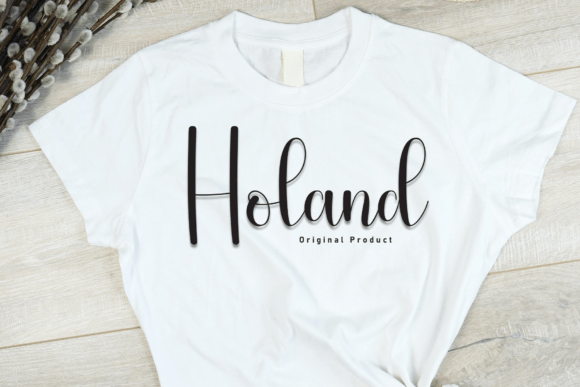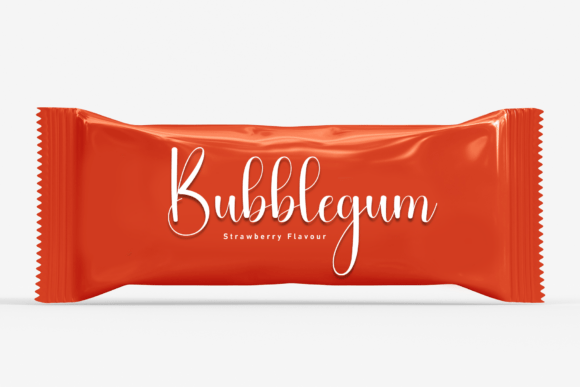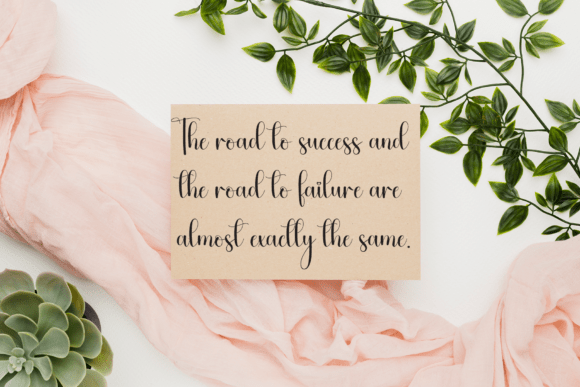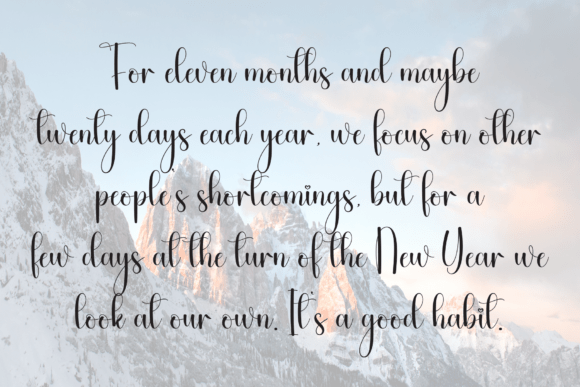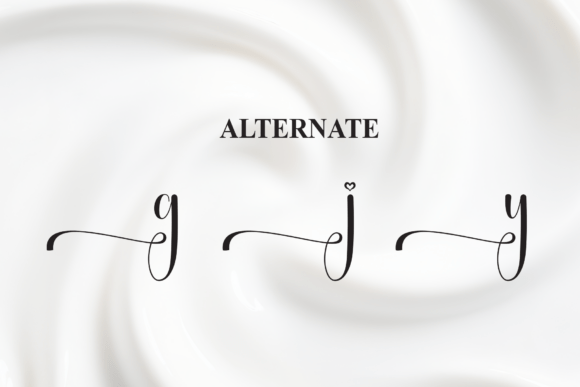
Creamy Font: The Perfect Addition to Your Design Arsenal
Are you tired of using the same old fonts in your designs? Do you want to add a touch of warmth and friendliness to your projects? Look no further than Creamy Font, a delightful and handcrafted display font that’s sure to bring a smile to your audience’s face. In this article, we’ll dive into the world of Creamy Font, exploring its features, uses, and benefits, and why it’s the perfect choice for designers and crafters alike.
What is Creamy Font?
Creamy Font is a charming and animated display font that’s designed to add a friendly touch to your designs. With its unique and handcrafted style, this font is perfect for creating wedding invitations, greeting cards, and any other design that requires a dash of joy. Whether you’re a designer, crafter, or DIY enthusiast, Creamy Font is sure to become your new go-to font.
Key Features of Creamy Font
• Handcrafted with love: Creamy Font is carefully crafted with attention to detail, giving it a unique and personalized touch.
• Delightful and warm: This font exudes warmth and friendliness, making it perfect for designs that require a personal touch.
• Charming and animated: Creamy Font has a playful and animated style that’s sure to capture your audience’s attention.
• Perfect for wedding invitations and greeting cards: This font is ideal for creating beautiful and heartfelt wedding invitations and greeting cards.
Why Choose Creamy Font?
So, why should you choose Creamy Font for your next design project? Here are just a few reasons:
• Adds a personal touch: Creamy Font adds a warm and friendly touch to your designs, making them more relatable and engaging.
• Versatile: This font can be used for a wide range of design projects, from wedding invitations to greeting cards, and even social media graphics.
• Unique and exclusive: With Creamy Font, you’ll have access to a unique and exclusive font that’s not commonly used, making your designs stand out from the crowd.
How to Use Creamy Font
Using Creamy Font is easy and straightforward. Here are a few tips to get you started:
• Pair it with other fonts: Creamy Font can be paired with other fonts to create a unique and visually appealing design.
• Experiment with colors: Try out different colors and color combinations to find the perfect match for your design.
• Use it for headings and titles: Creamy Font is perfect for headings and titles, adding a touch of elegance and sophistication to your designs.
Design Ideas with Creamy Font
Here are a few design ideas to get you started with Creamy Font:
• Wedding invitations: Create beautiful and heartfelt wedding invitations with Creamy Font.
• Greeting cards: Design personalized greeting cards for special occasions, such as birthdays, anniversaries, and holidays.
• Social media graphics: Use Creamy Font to create engaging and eye-catching social media graphics.
• Logos and branding: Create a unique and memorable logo and branding with Creamy Font.
In conclusion, Creamy Font is a delightful and handcrafted display font that’s perfect for designers and crafters looking to add a touch of warmth and friendliness to their designs. With its charming and animated style, this font is ideal for creating wedding invitations, greeting cards, and any design that requires a dash of joy. So why wait? Get your hands on Creamy Font today and take your designs to the next level!